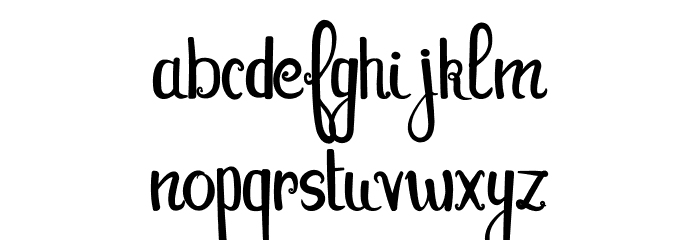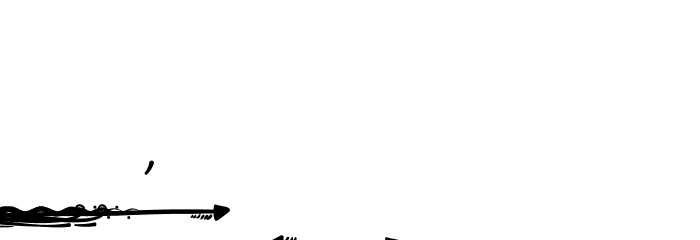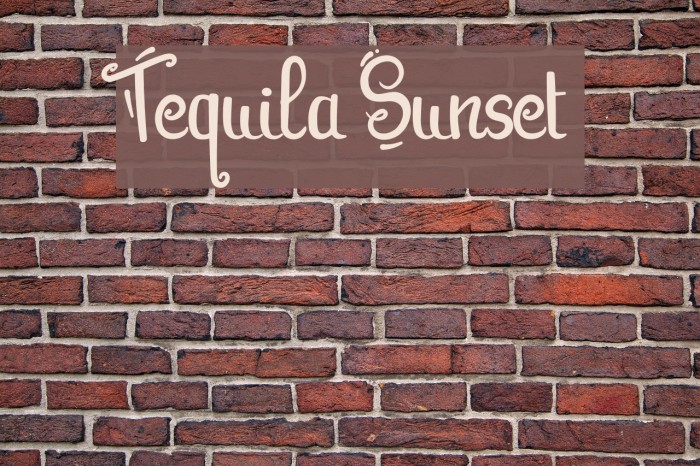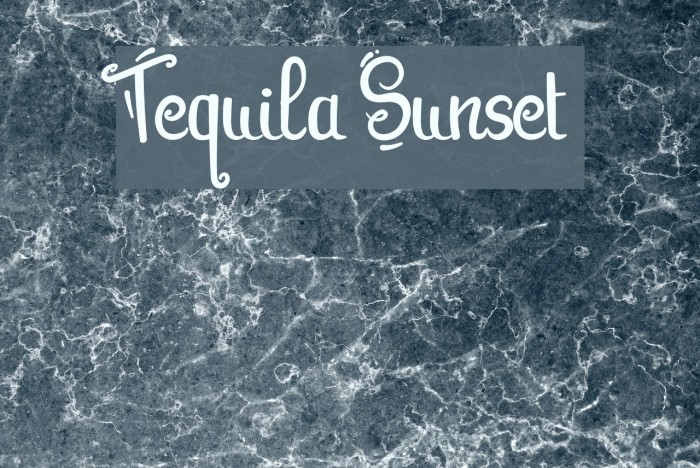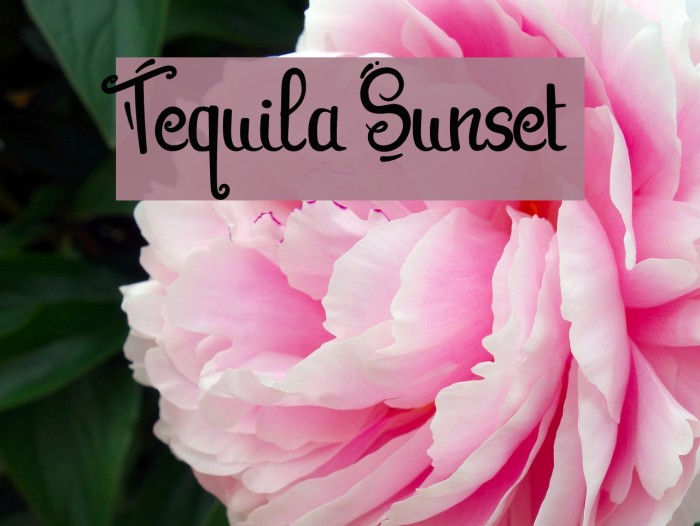
Tequila Sunset Font
This font features a whimsical and playful style with a handwritten feel. The letters are characterized by their flowing curves and decorative elements, giving them a lively and dynamic appearance. The uppercase letters are bold and prominent, while the lowercase letters maintain a consistent style with a slightly more delicate touch. The font includes unique embellishments, such as loops and swirls, that add to its charm and creativity. It is well-suited for projects that require a fun and engaging aesthetic.
A whimsical, playful font with decorative, flowing curves and a handwritten feel.
- Font: Tequila Sunset
by SvNProd - Weight: Regular
- Proposed Projects: Ideal for greeting cards, invitations, children's books, and playful branding projects.
- Use Case: Logos, Headlines, Invitations